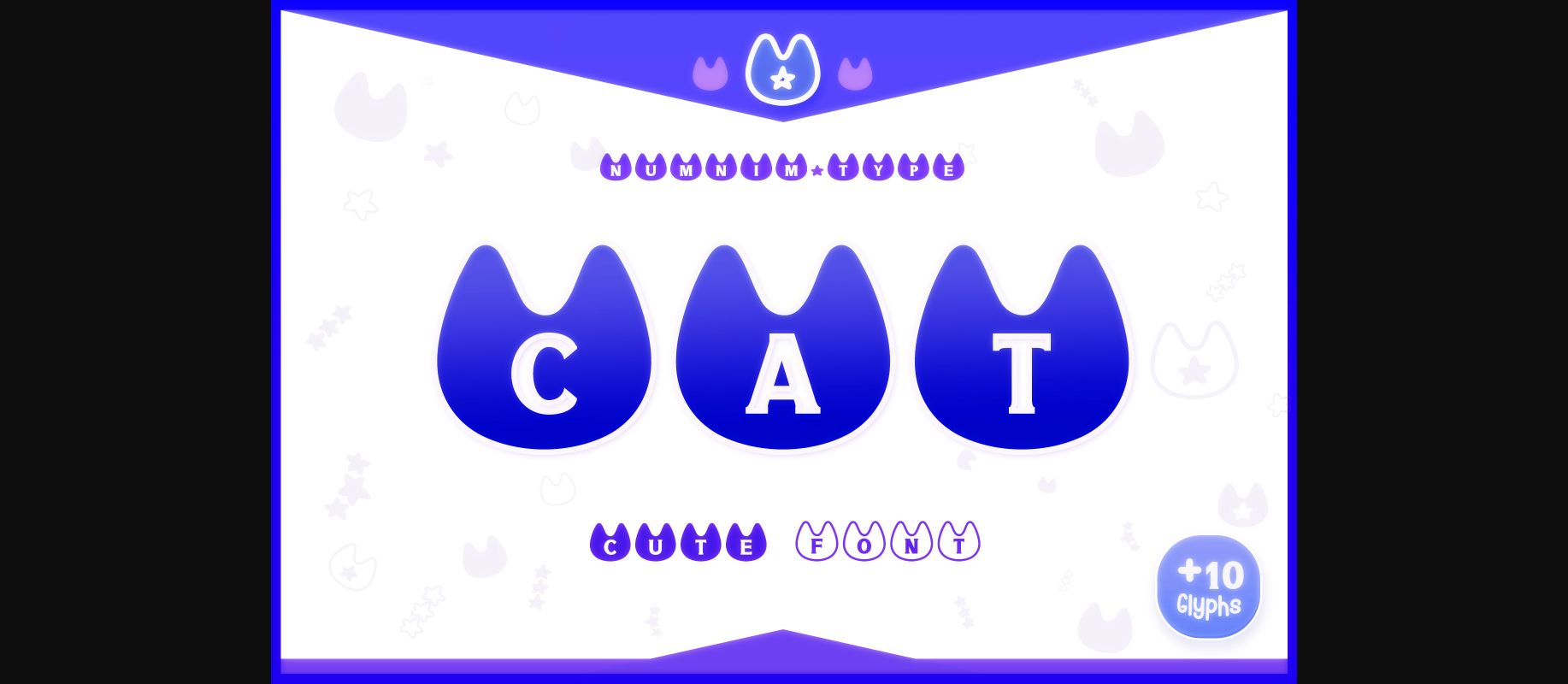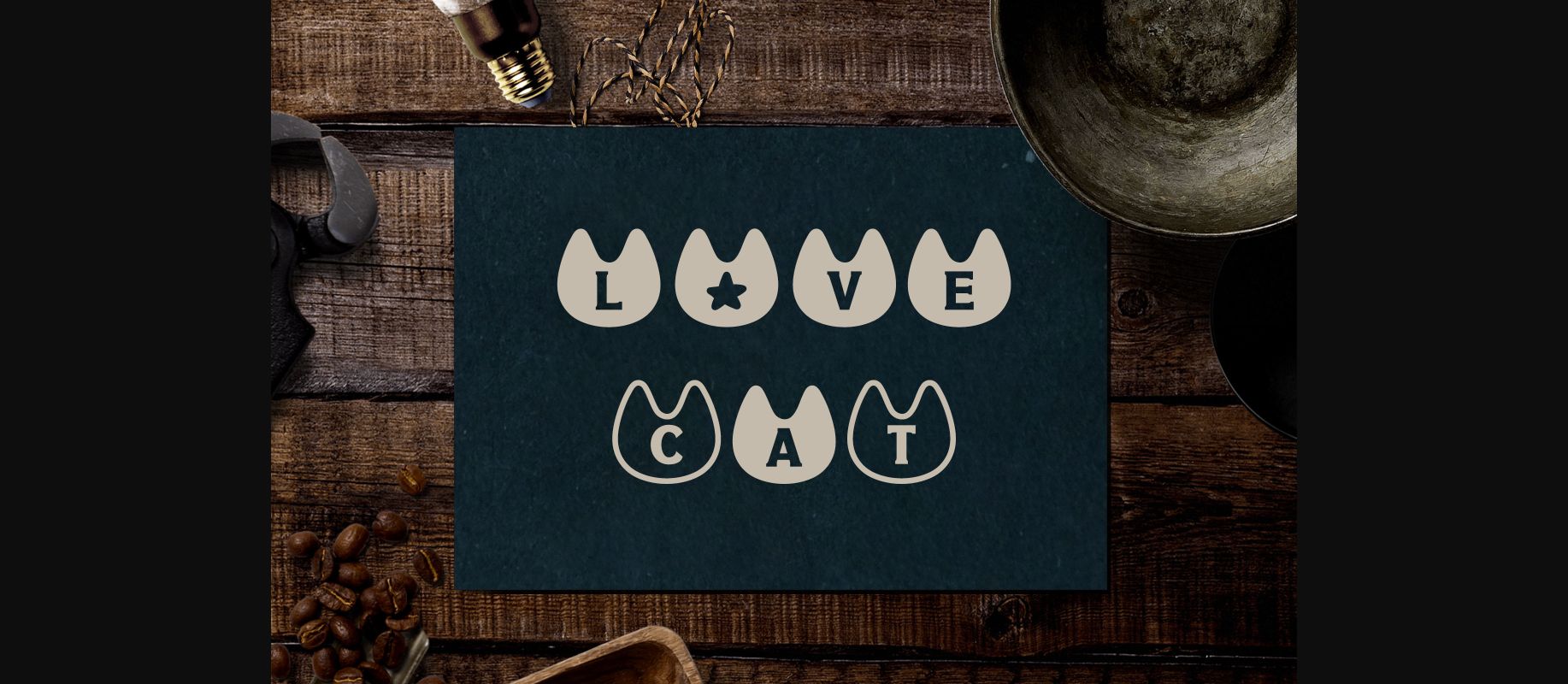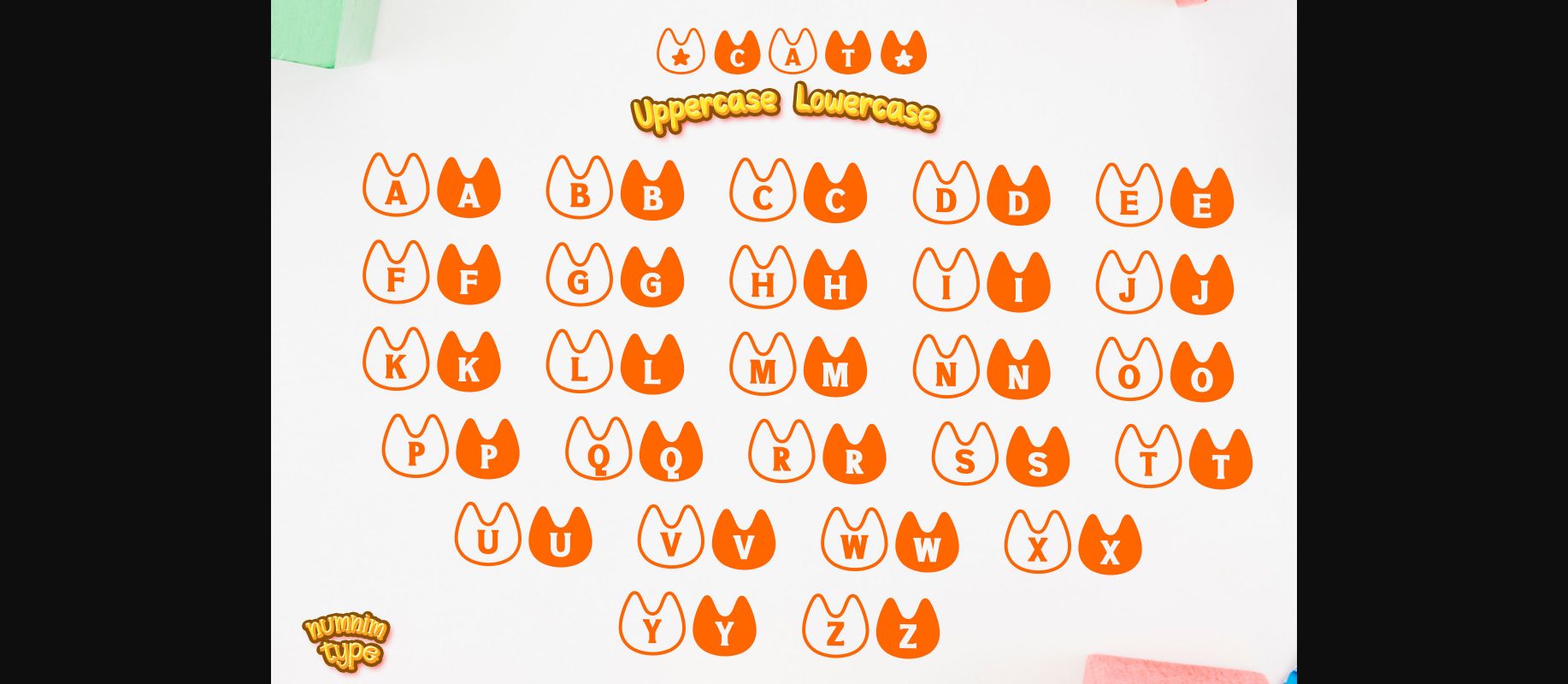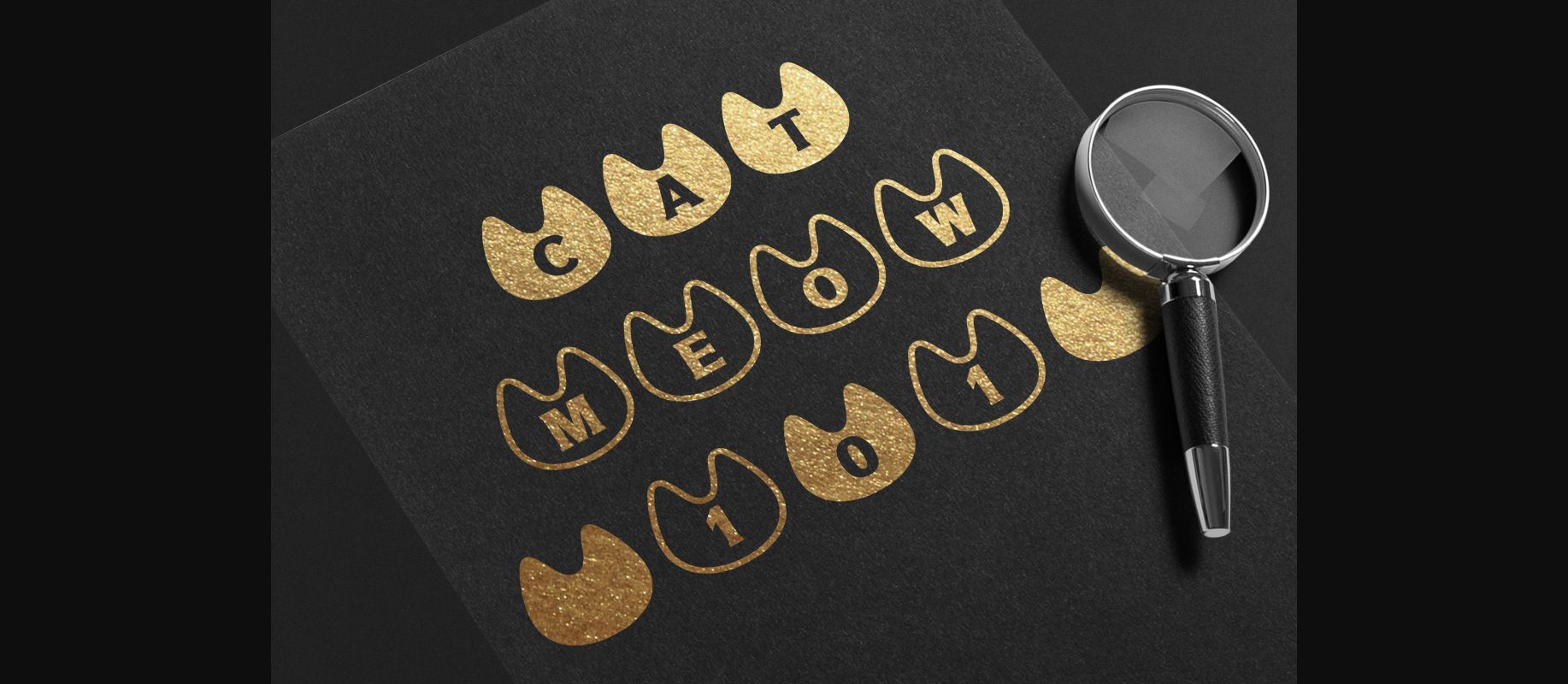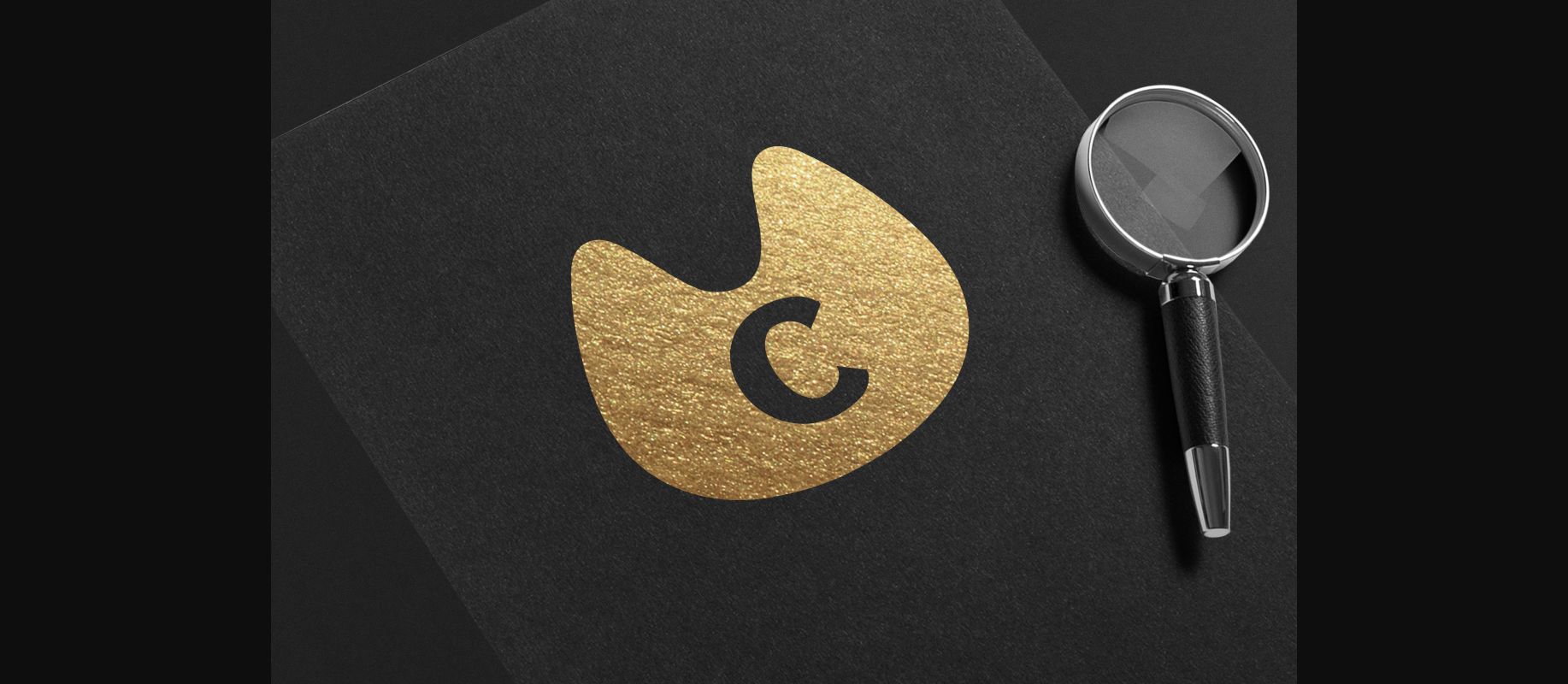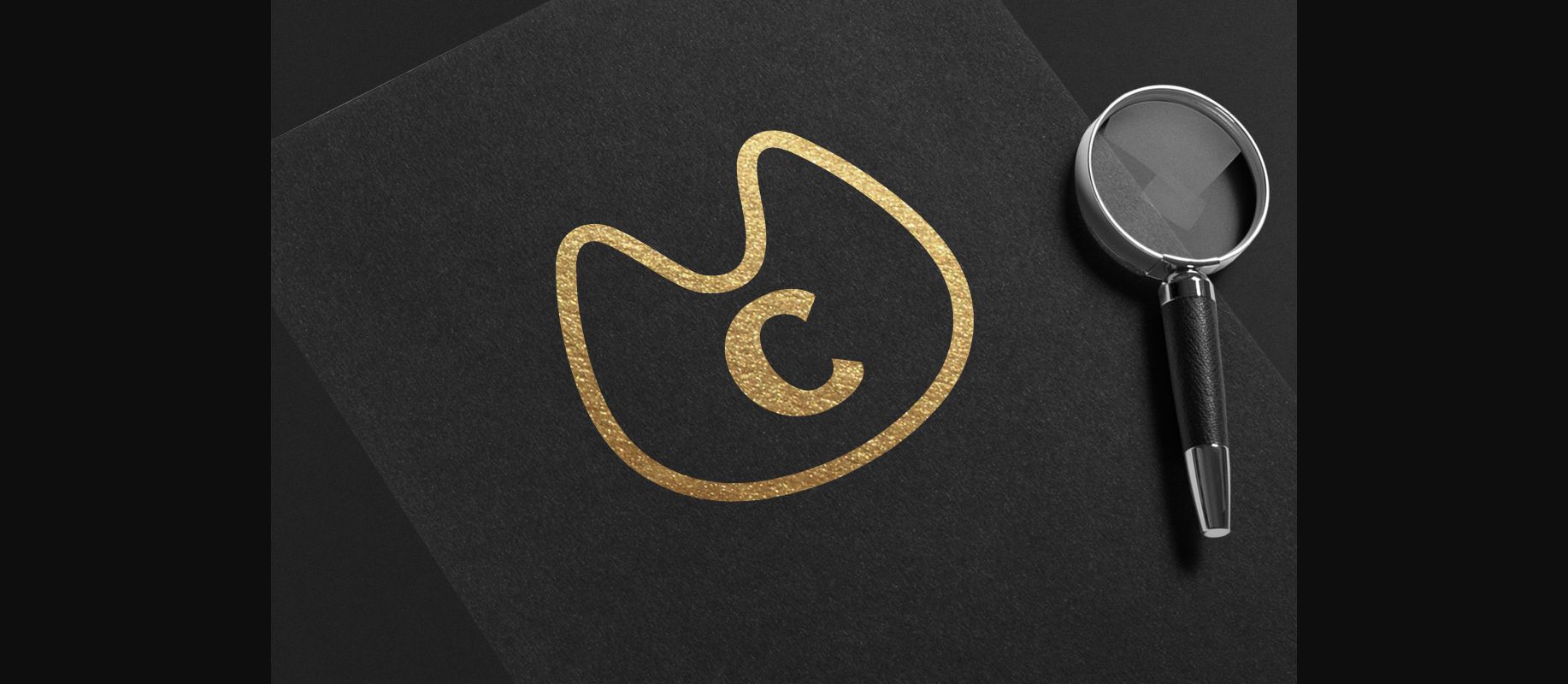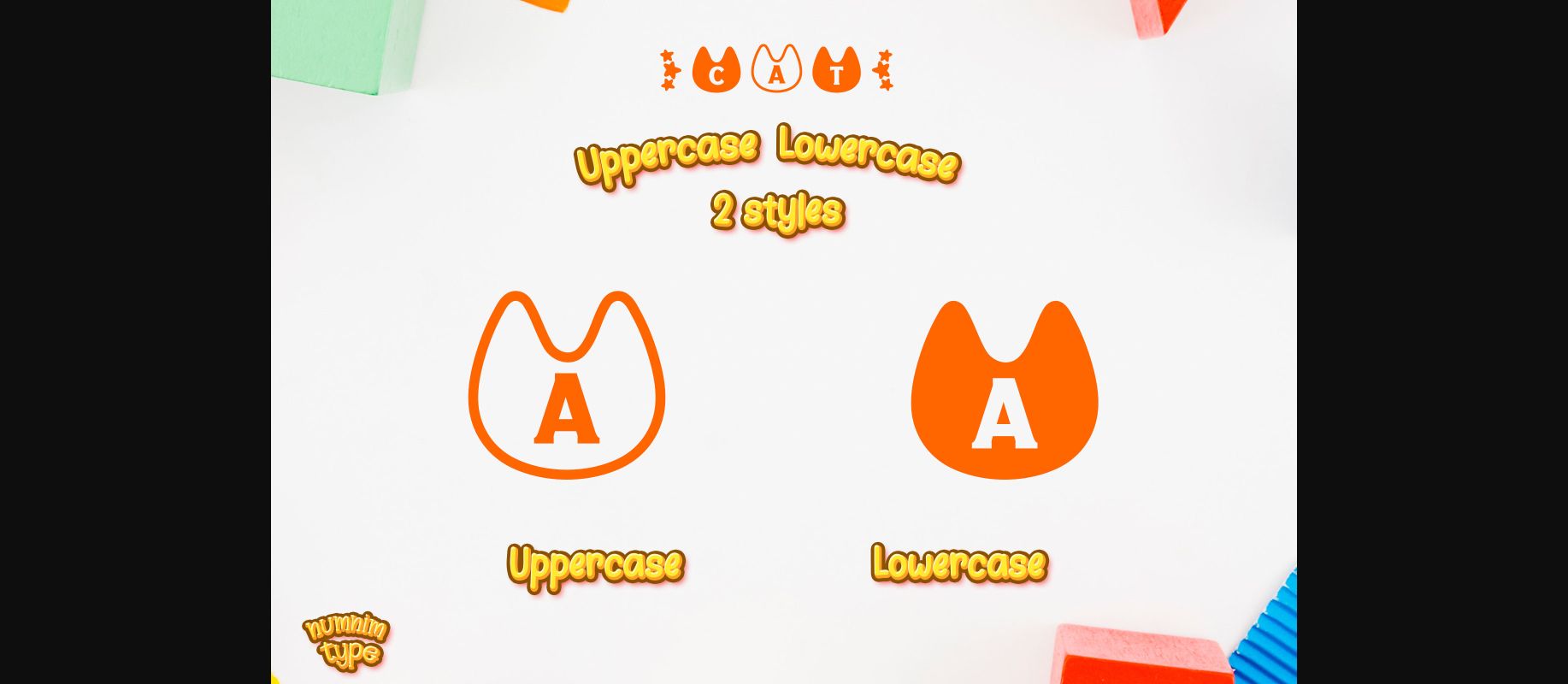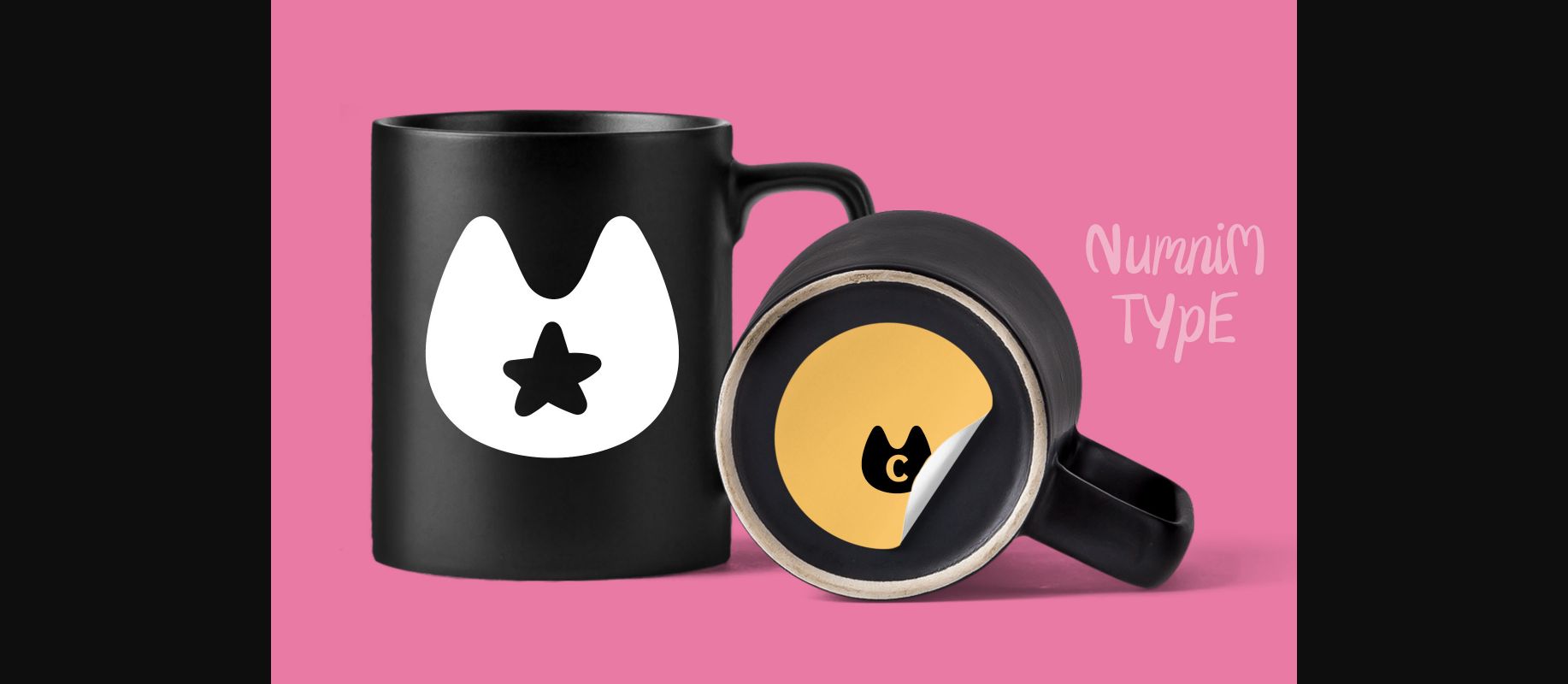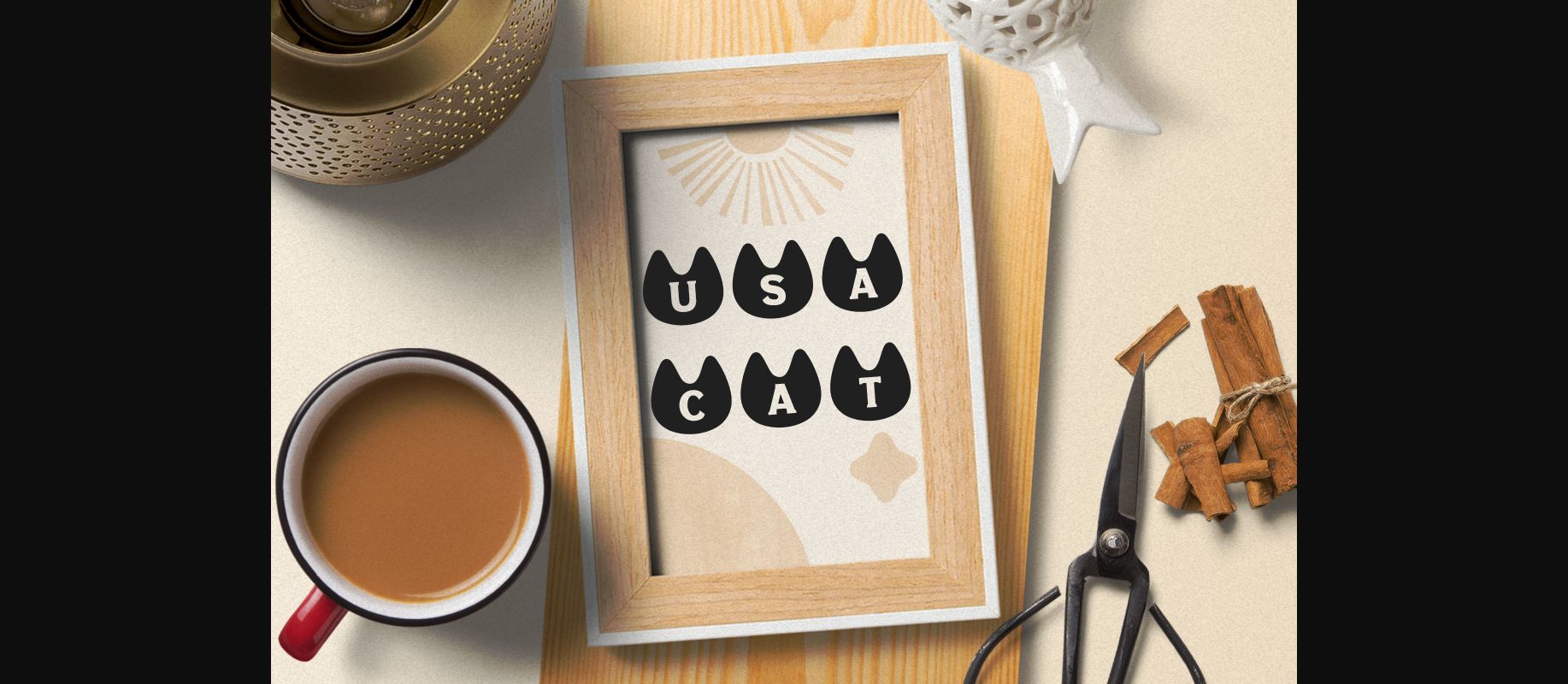
HomeDecorative FontsCat Font Decorative Fonts Cat Font FacebookXPinterestWhatsApp 1 of 11 ... Cat Font Poster 2... Cat Font Poster 3... Cat Font Poster 4... Cat Font Poster 5... Cat Font Poster 6... Cat Font Poster 7... Cat Font Poster 8... Cat Font Poster 9... Cat Font Poster 10... Cat Font Poster 11... About Cat Font Cat is a cute and fun decorative font. It embodies playfulness and authenticity and is the perfect choice for any children activity or school project. DOWNLOAD NOW People also explored De Orleans Font Kids Navy Bella Canvas 3001T Tee Mockup Gazillions Font Berdikari Font Pashalovia Extra Light Font Unicorn Font Sungar Font Yellow World Font Sophia 268 0 TagsCatCat Font Previous articleMonogram Rosess FontNext articleEthic Art Font LEAVE A REPLY Cancel reply Comment: Please enter your comment! Name:* Please enter your name here Email:* You have entered an incorrect email address! Please enter your email address here Website: Save my name, email, and website in this browser for the next time I comment. Personal Use Free Juliagar Personal Use Free Read more about this font Vogue Font Personal Use Free Read more about this font Goldsaber Personal Use Free Read more about this font Hubbies Personal Use Free Read more about this font BLOG Best Fonts for YouTube Videos: Make Your Thumbnails Stand Out Best Fonts for YouTube Videos: Make Your Thumbnails Stand Out Choosing the right font can make a massive difference in how your YouTube videos perform.... Transform Your Website: Elevate Your Typography with 7 Best Web Font Generators How to Install and Use Fonts on Windows, macOS, and Web Projects How to Cut Any Font on Cricut: Convert a Font to SVG (Free)